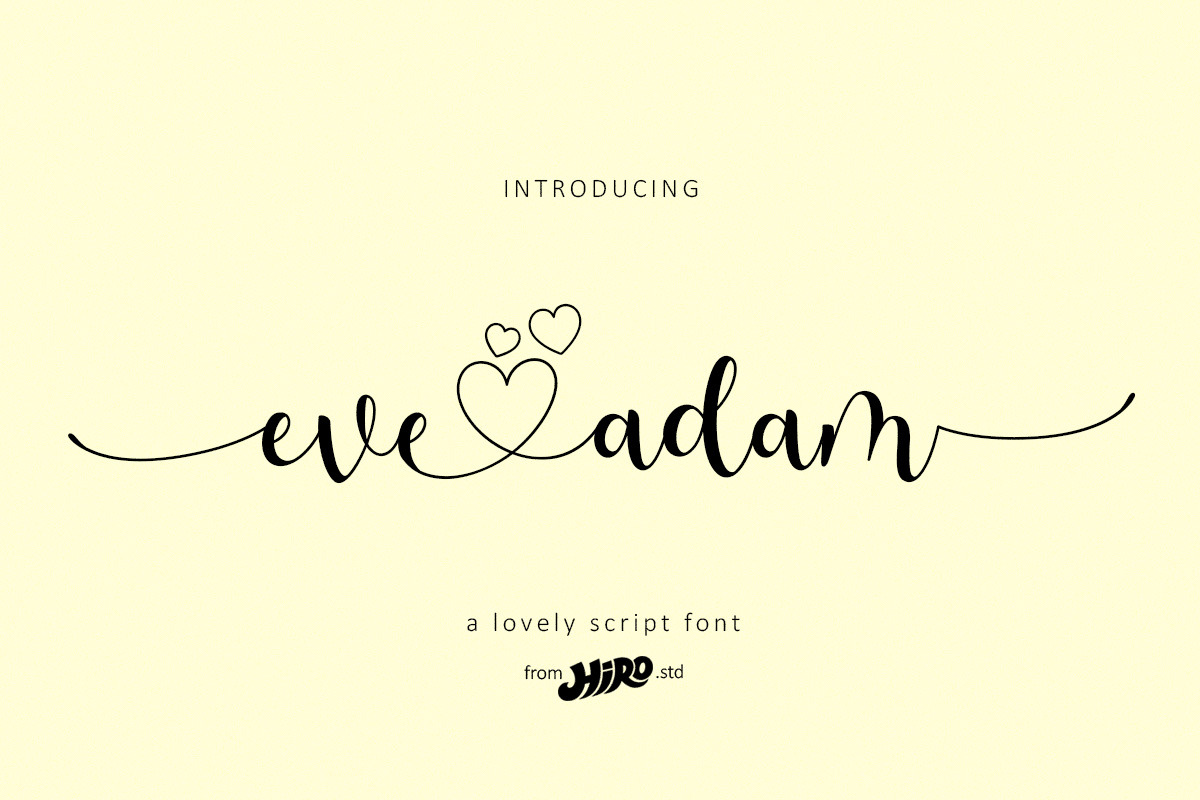
Eve Adam - Lovely Script Font
Eve Adam is a lovely script font.
This font describes about elegant, classy, dynamic, stylish, catchy, feminist, easy to use and will bring a good harmony when the letters are connected and paired each other.
- Support Ligatures
- Uppercase beginning swash
- Lowercase beginning and ending swash
- Connecting heart
USE Eve Adam works great in any wedding invitations, branding, logotype, quotes and any projects that need lovely script taste.